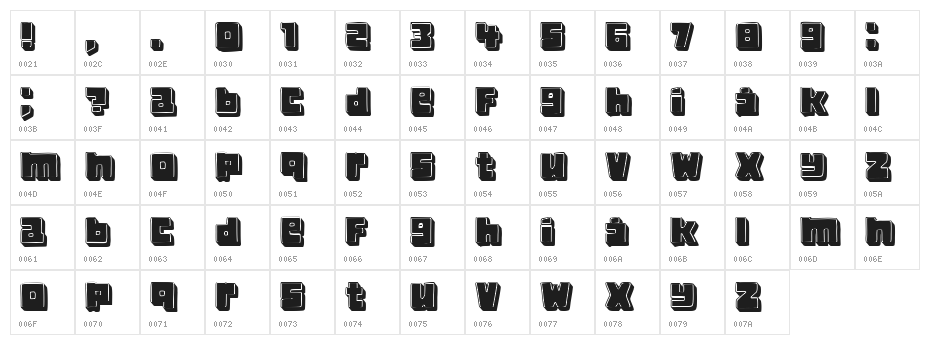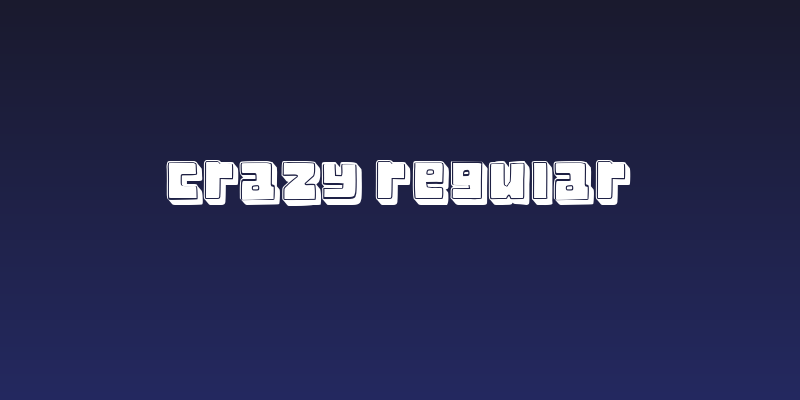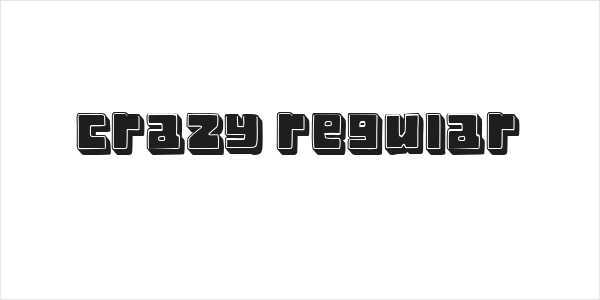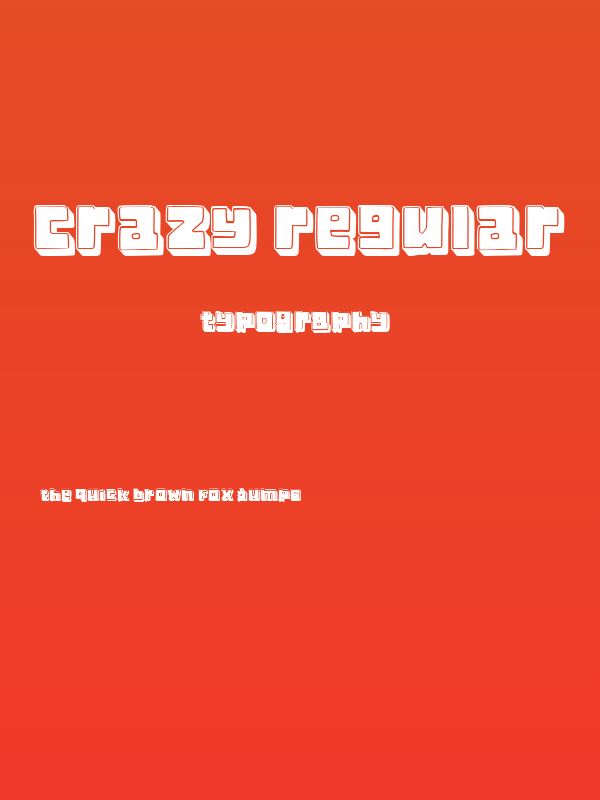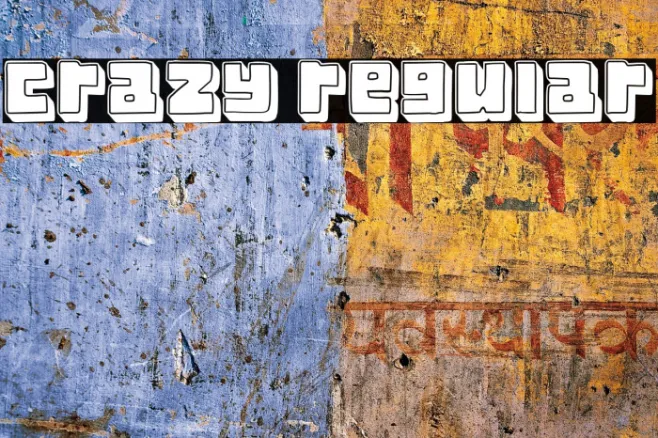
Crazy Regular Font
Crazy Regular Description
This font features a bold, three-dimensional block style with a strong presence. Each character is outlined, creating a shadow effect that adds depth and dimension. The design is playful and eye-catching, making it ideal for projects that require a standout visual impact. The uppercase and lowercase letters maintain a consistent style, with rounded edges that soften the overall look. Numbers and special characters are included, matching the bold and dynamic aesthetic. This font is perfect for creative projects that aim to capture attention and convey a sense of fun and energy.
| Proposed Projects | Ideal for posters, headlines, logos, and any design needing a bold, attention-grabbing font. |